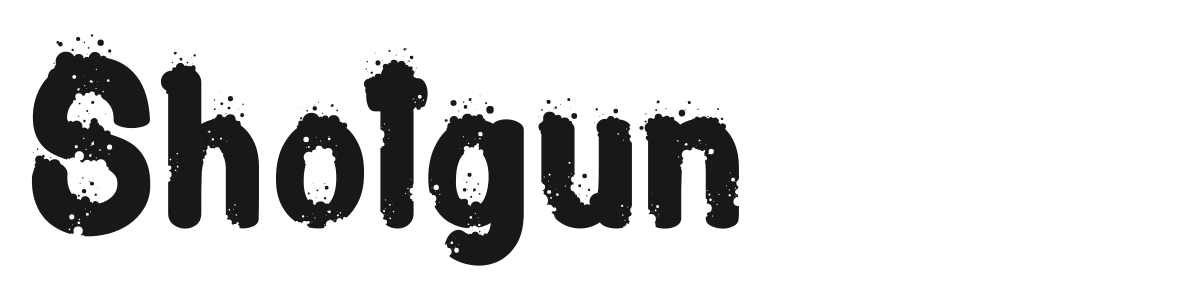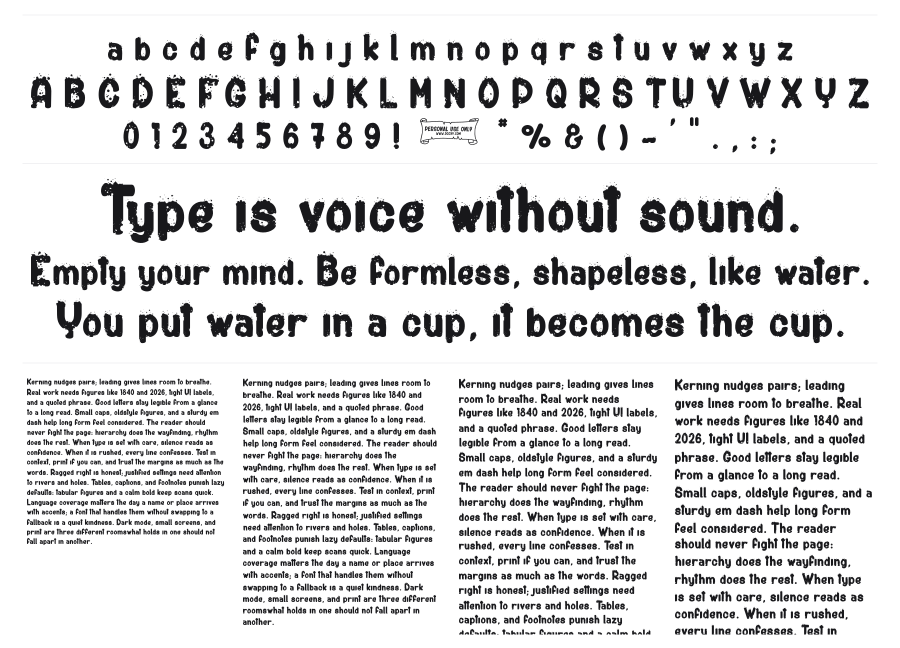
Shotgun
Shotgun is a heavy distressed display font with an aggressively eroded, ink-splattered texture that dominates every character. The underlying forms are chunky and rounded, but the heavy grunge treatment pushes it firmly into horror, punk, and underground territory. It works at large sizes where the texture reads clearly as intentional damage rather than noise.